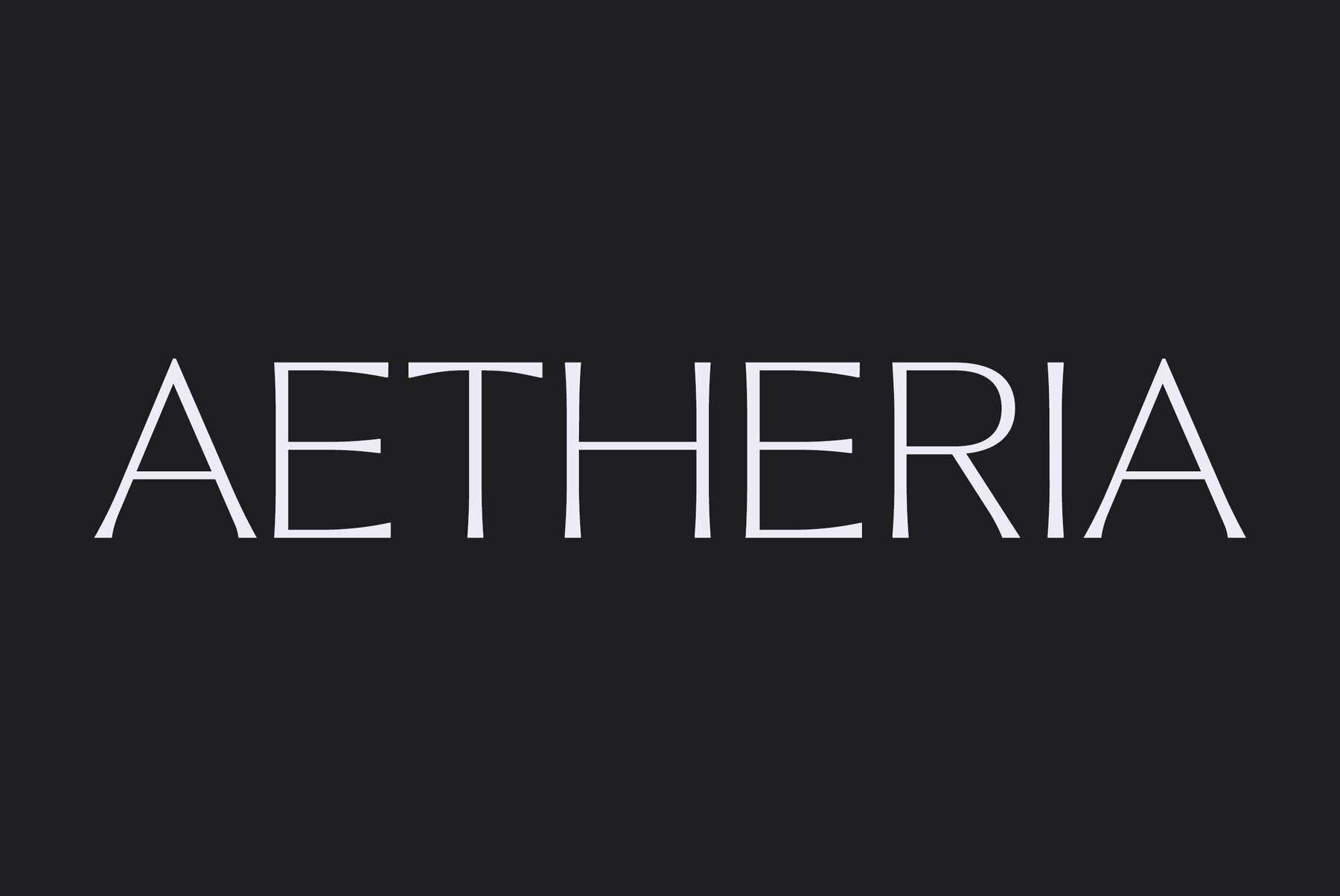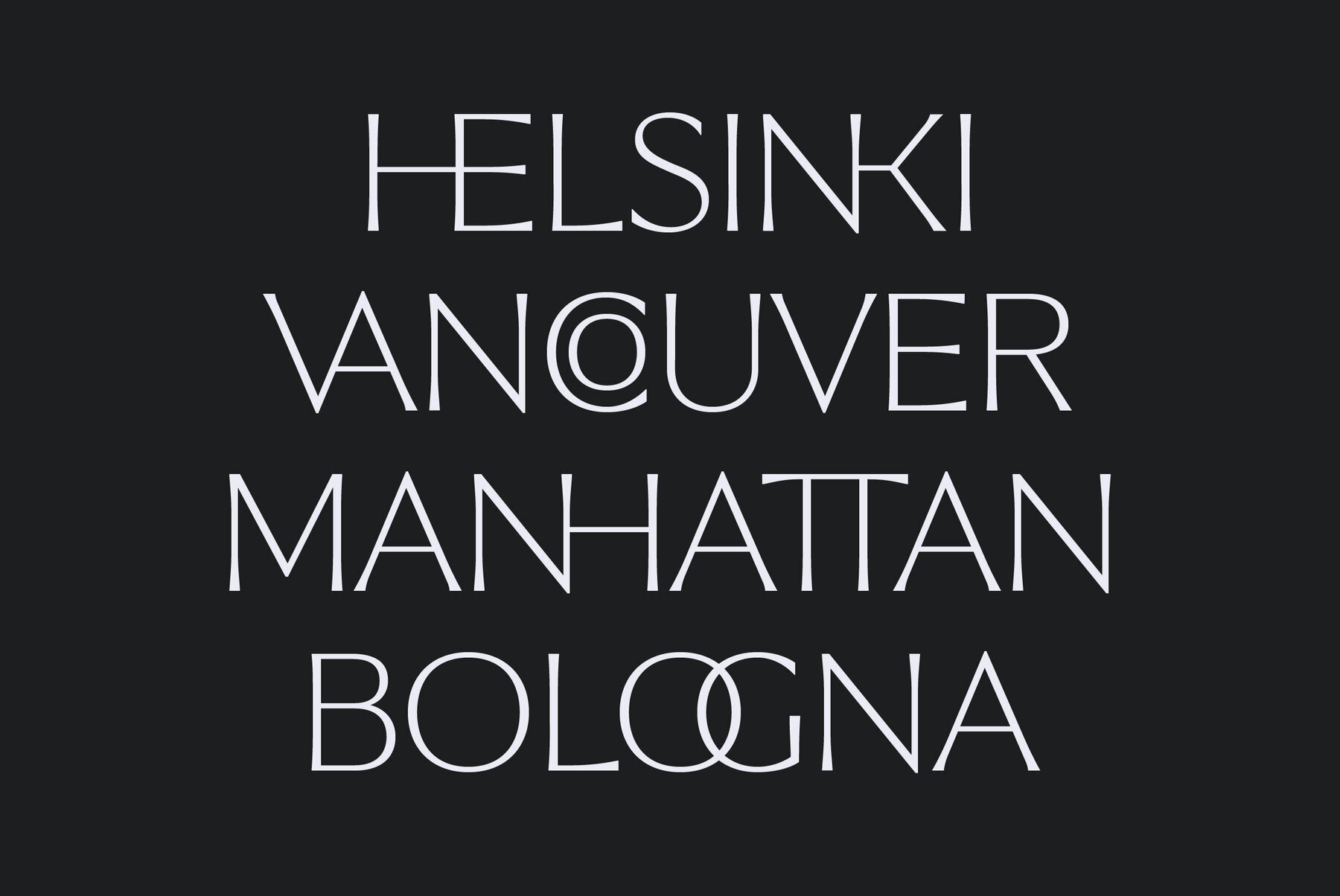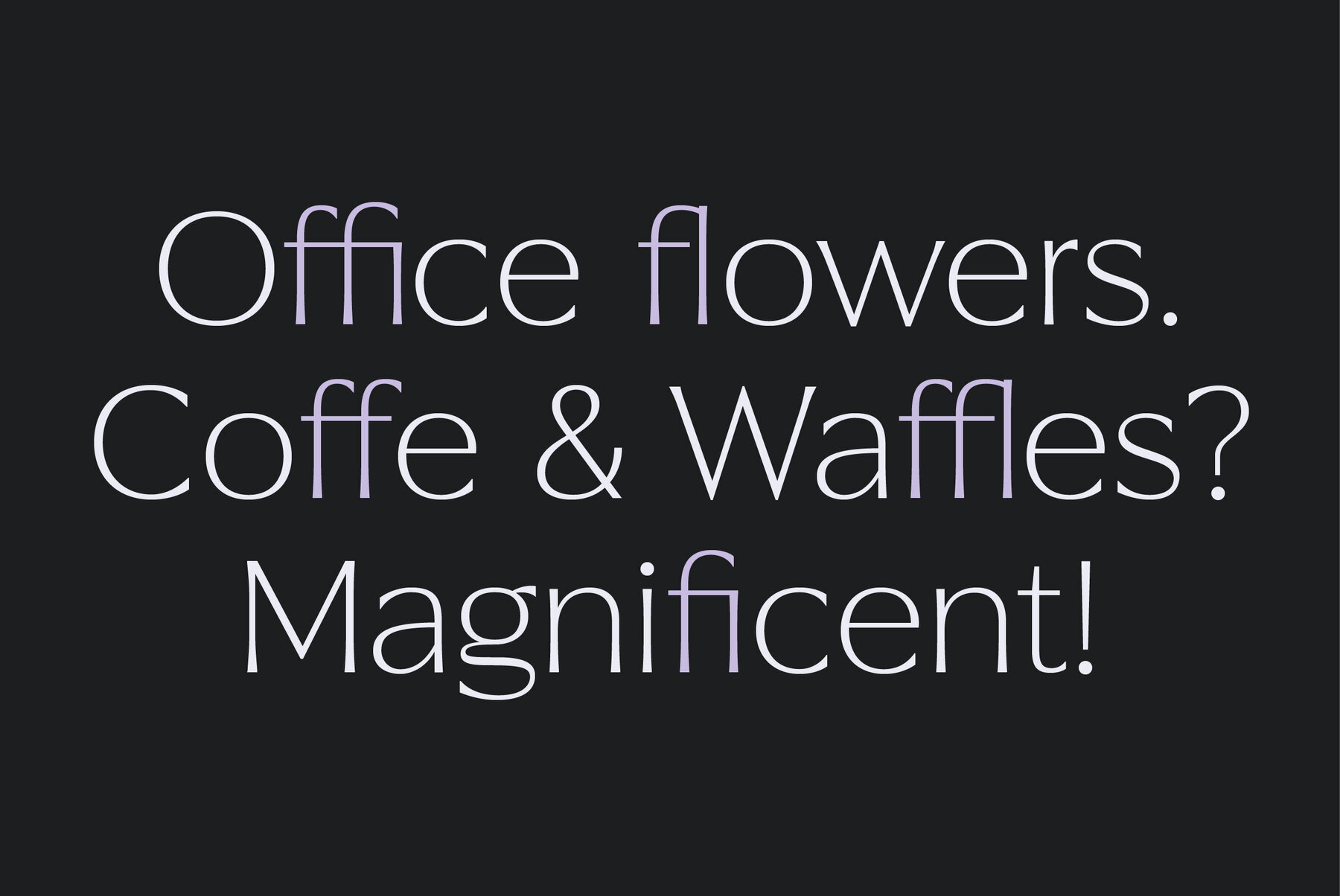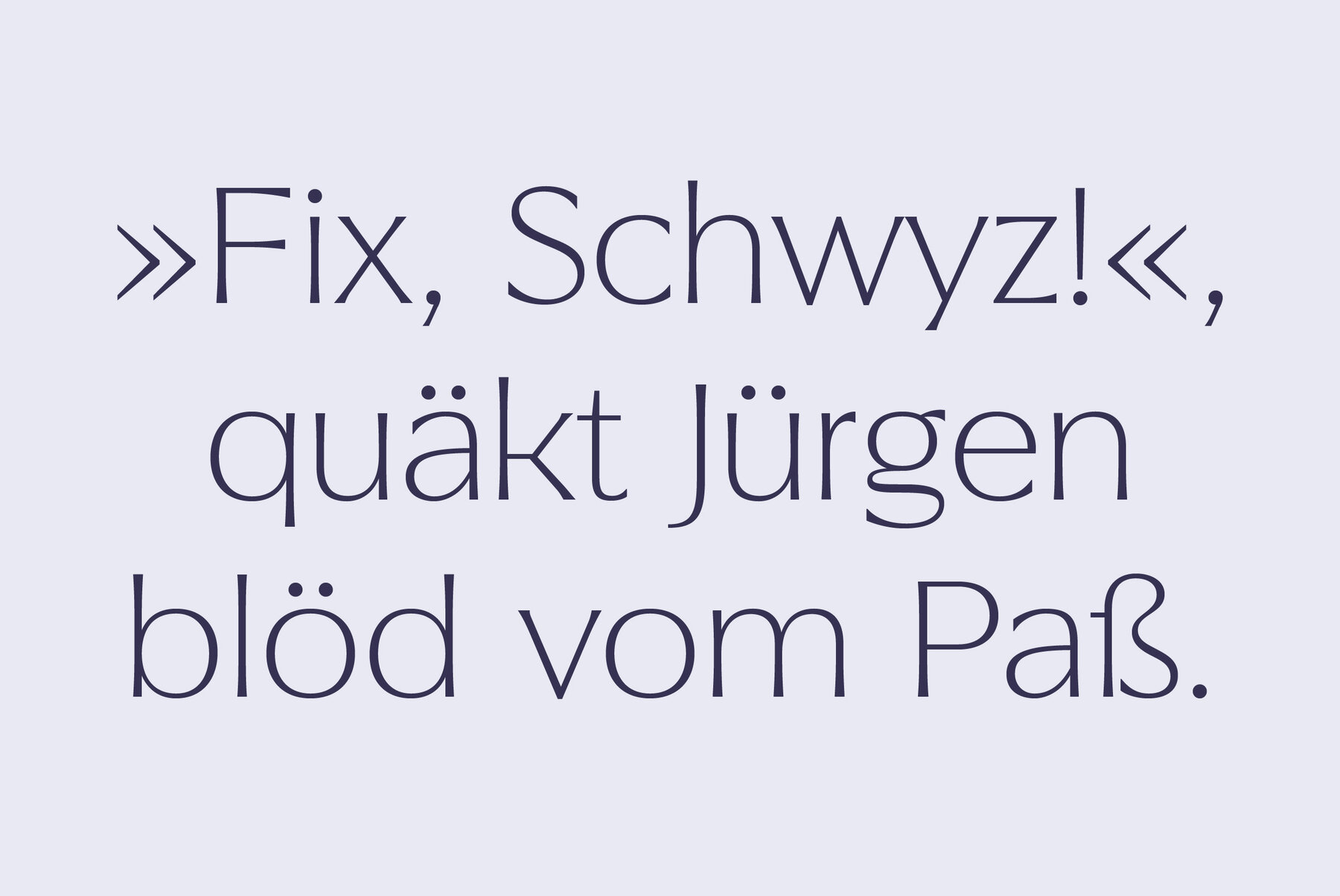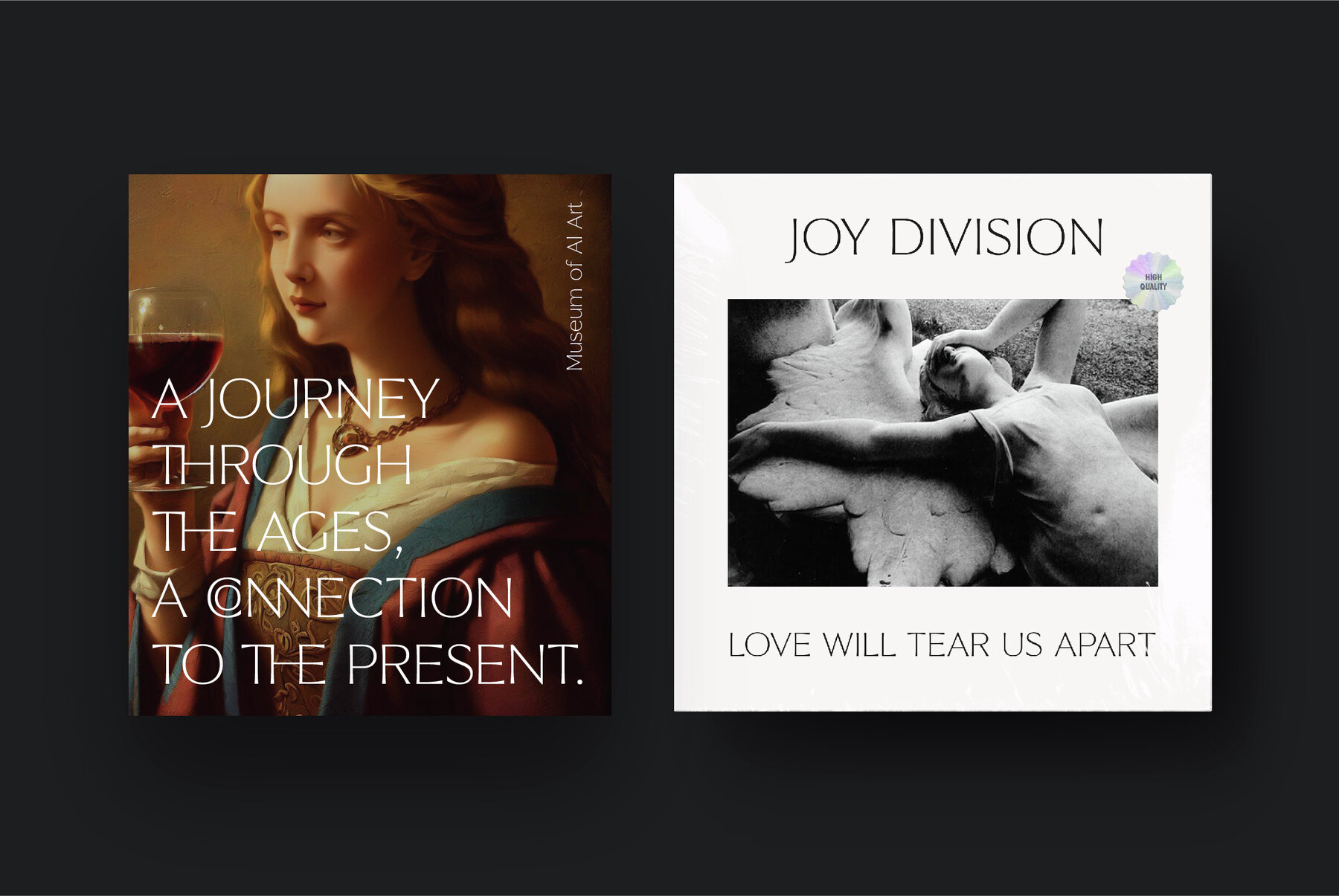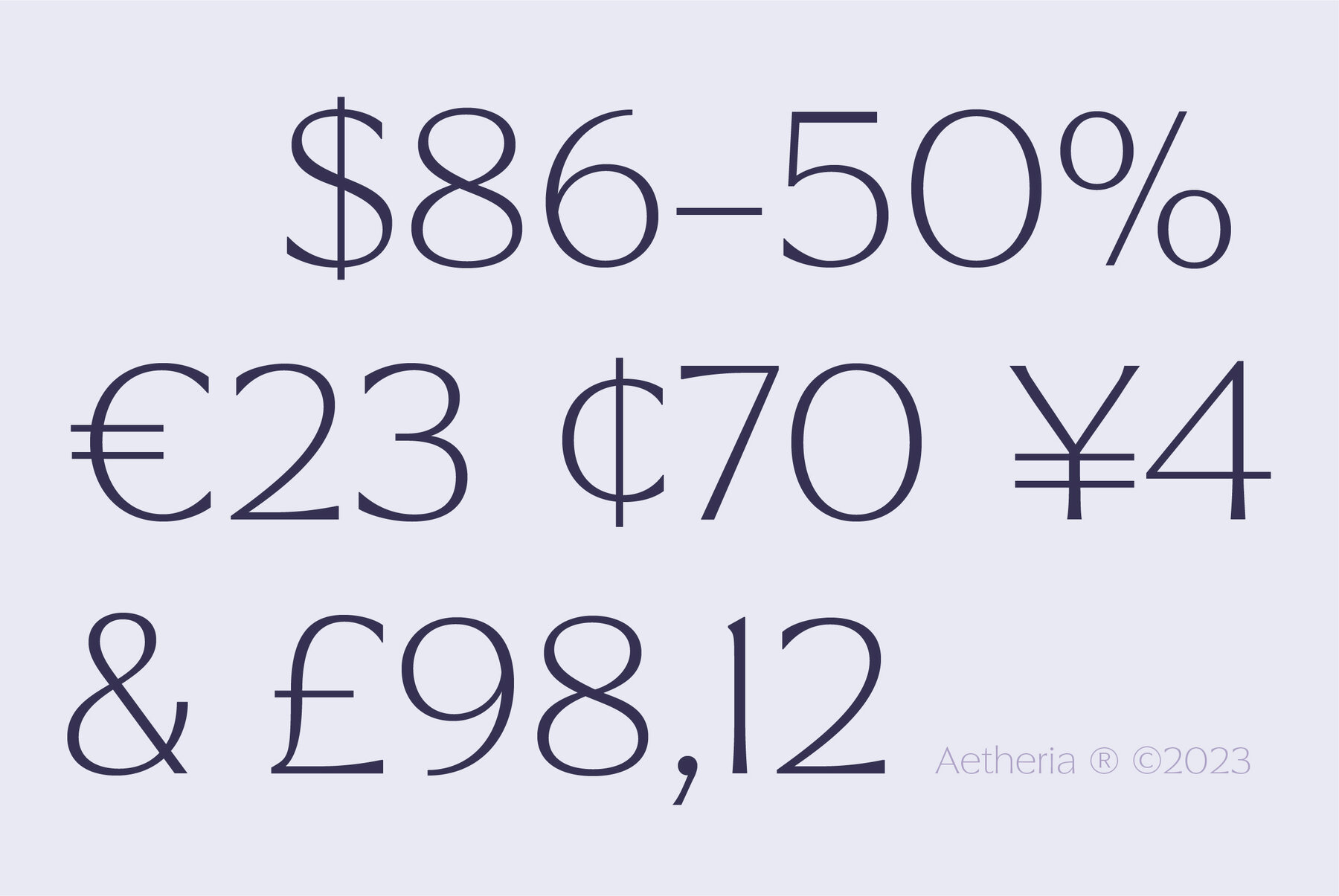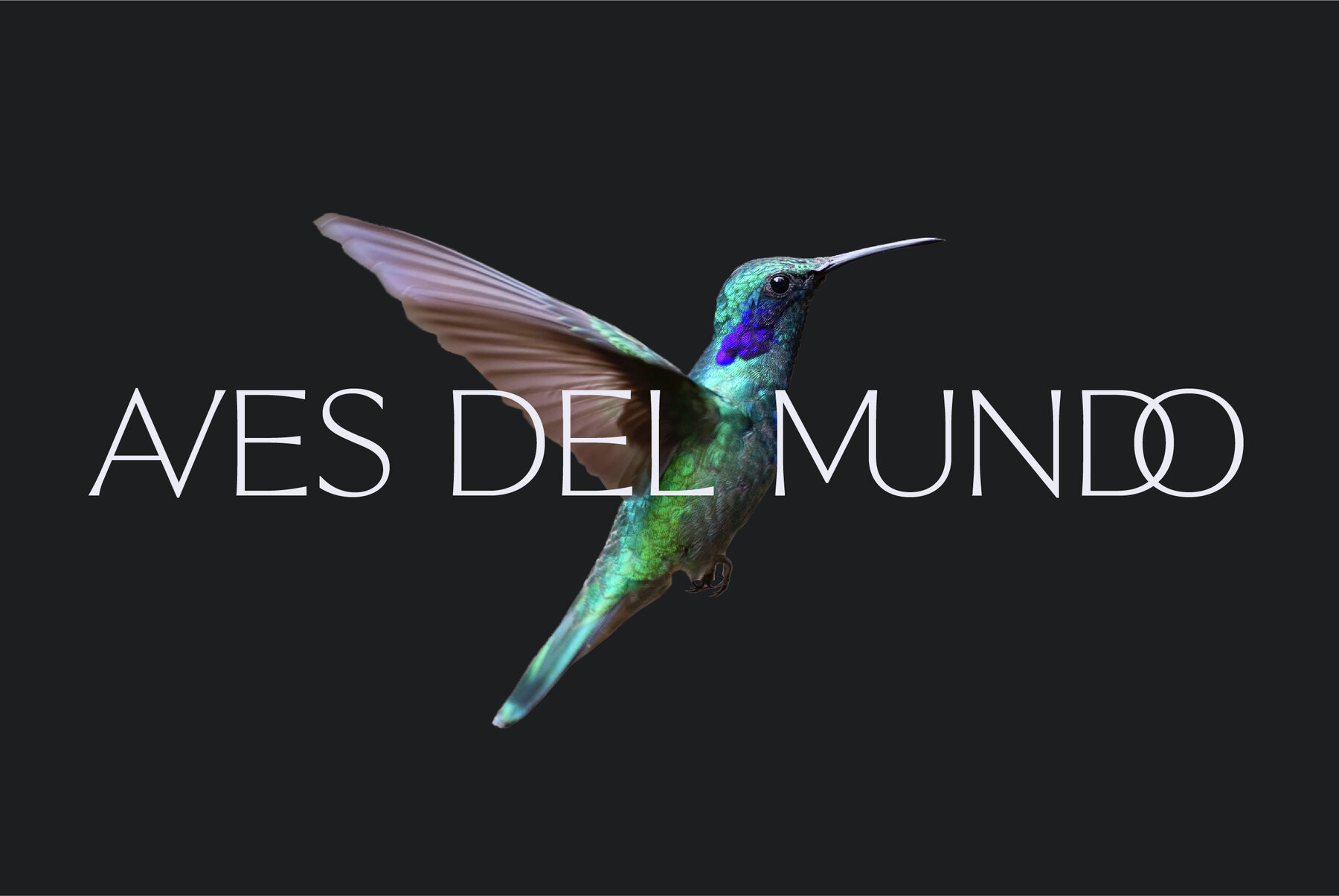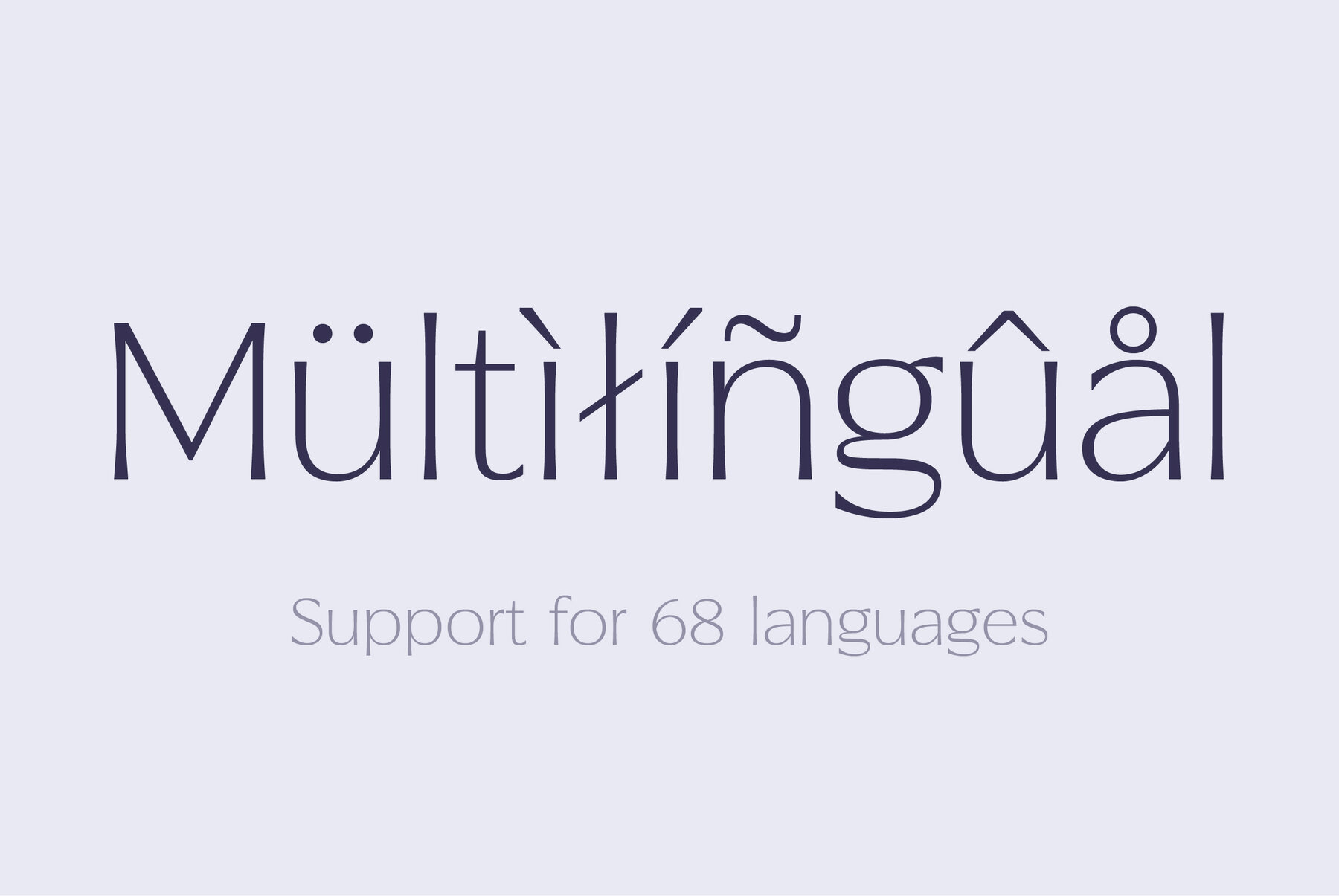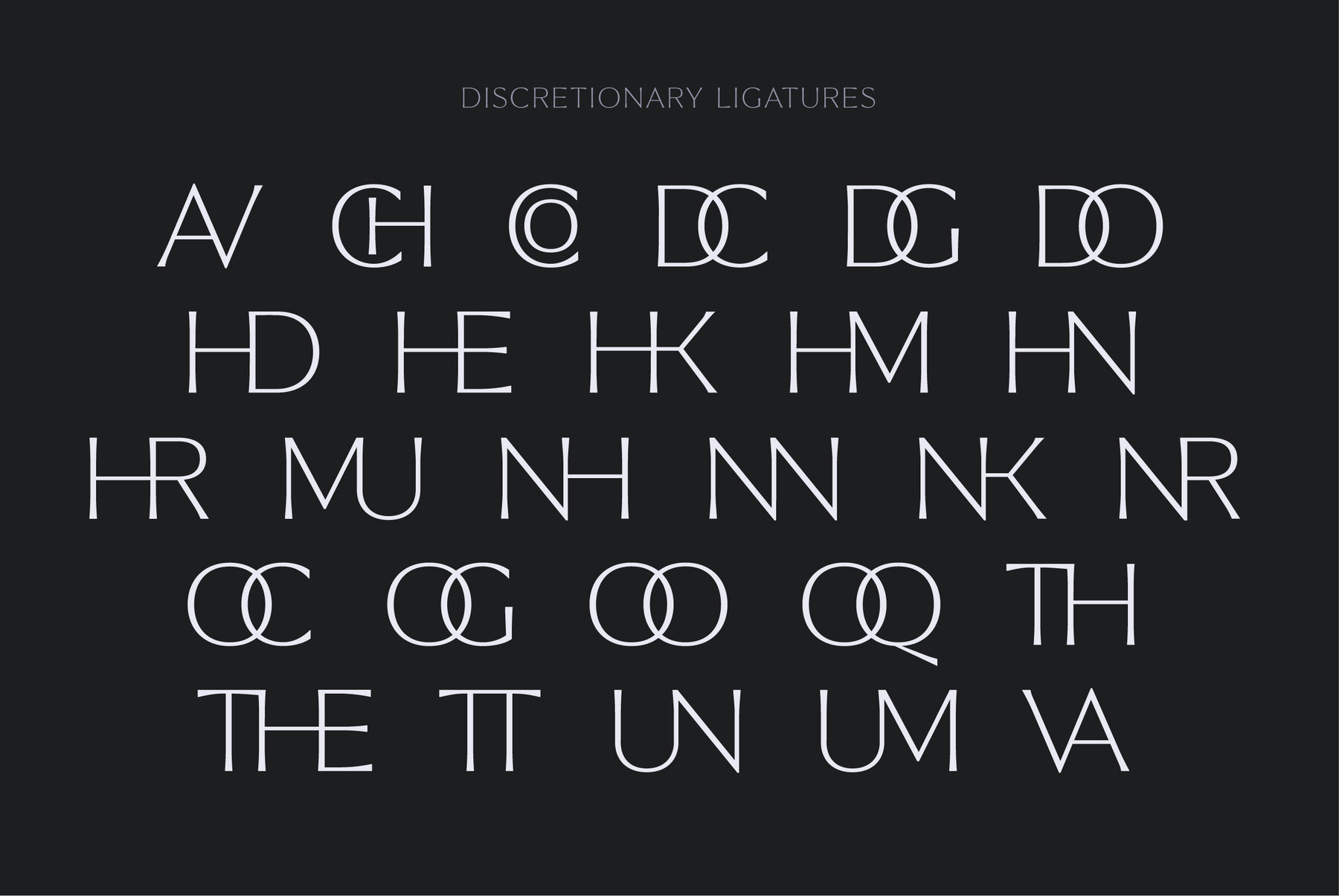
Aetheria Font
Aetheria Regular
Aetheria is a display typeface that combines the classic appeal of ancient engraved typography with a touch of modernism. Its subtle serifs add a touch of sophistication, giving it an elegant and refined look.
FEATURES
— 261 Glyphs.
— Uppercase & lowercase.
— Diacritics.
— Numbers, fractions, symbols, punctuation & mathematical symbols.
— More than 25 discretionary ligatures.
— Supports 68 languages.